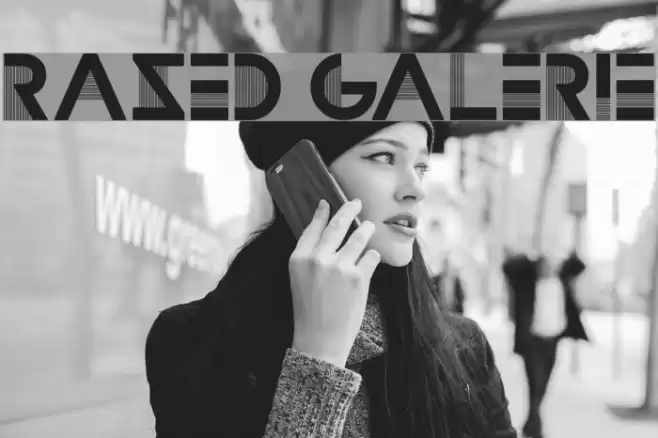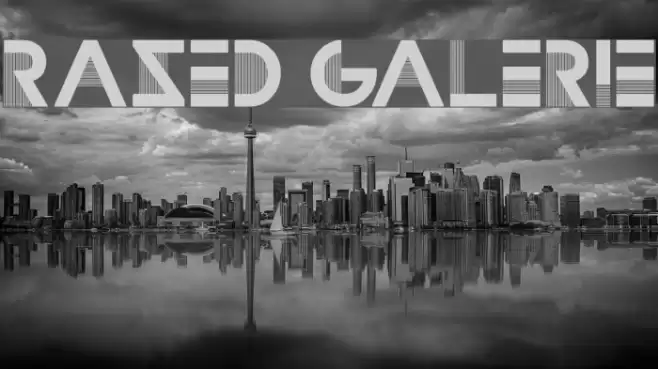
Razed Galerie Font
Razed Galerie Description
This font features a bold and striking design with a modern, geometric aesthetic. The characters are constructed with thick, solid lines and incorporate unique cut-out patterns and stripes, giving them a dynamic and futuristic appearance. The uppercase letters are particularly distinctive, with angular shapes and varying line thicknesses that create a sense of movement and depth. The numerals and special characters maintain this bold style, ensuring consistency across all glyphs. This font's design is eye-catching and ideal for projects that require a strong visual impact.
A bold, geometric font with dynamic cut-out patterns and a modern aesthetic from Uncategorized fonts.